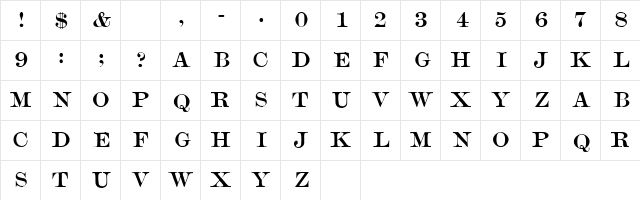
Mercantile Regular HPLHS Free Font
Mercantile Regular HPLHS
Style: HPLHS
Design Context for Mercantile Regular
Mercantile Regular is a composed and adaptable typeface that performs quietly and consistently across a wide range of design contexts.